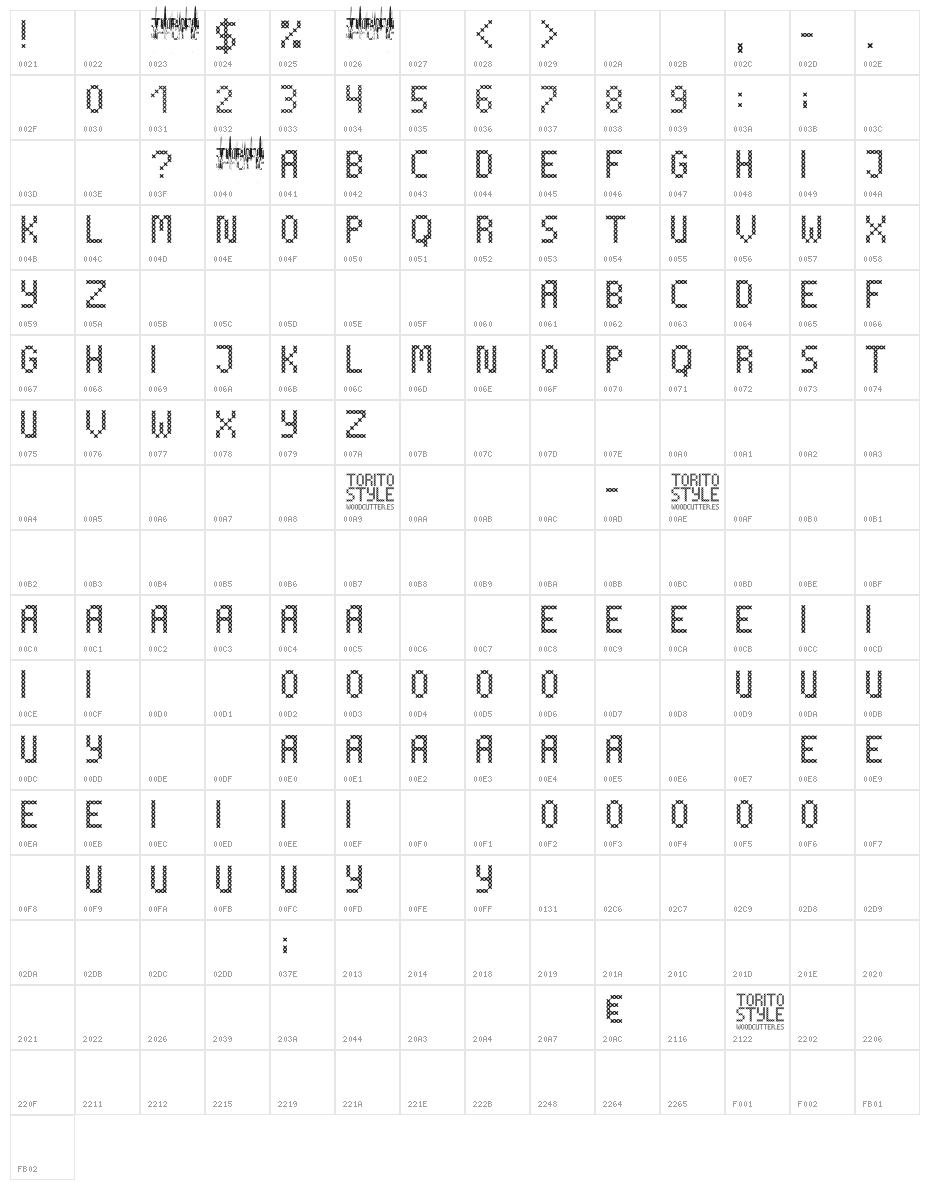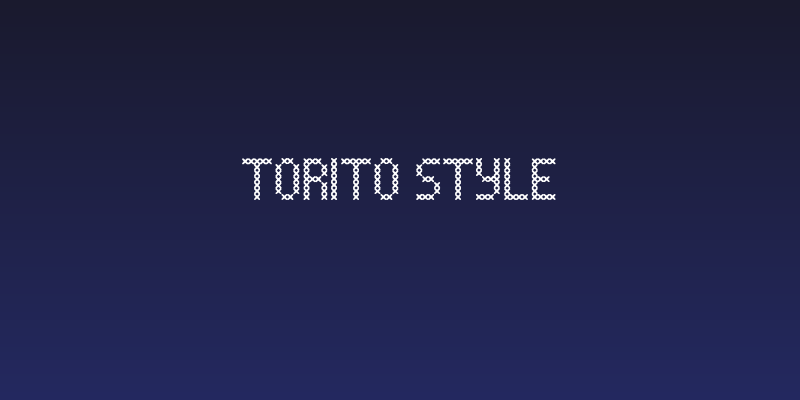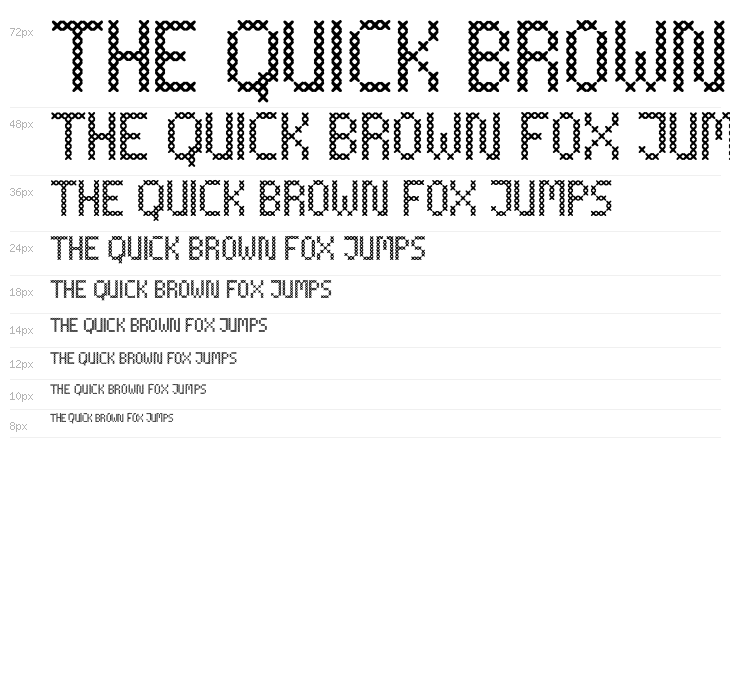
Torito Style Font
| Caso d'uso | Logos, Headlines, Craft projects |
| Progetti proposti | Ideal for craft-themed projects, DIY invitations, textile branding, or any design requiring a handmade aesthetic. |